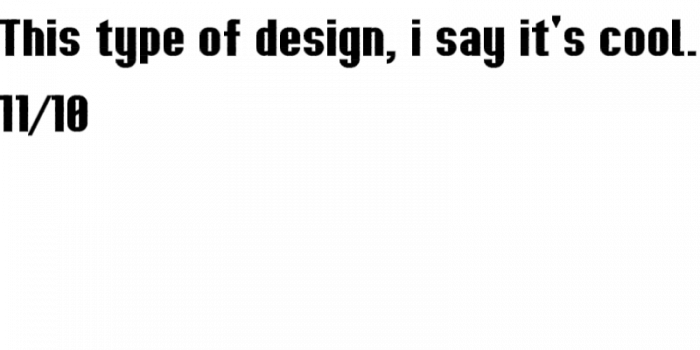
• Private Use Area (E000 ~ EFFF) contains all kinds of (existing) Latin characters that could normally only be made by using the combining diacritical marks.
I actually based my font off of yours! See https://fontstruct.com/fontstructions/show/2085829/sporti
Reminds me of impact... Cool!
Can you add K with tilde (letter for Mikiana (constructed language)) in the PUA